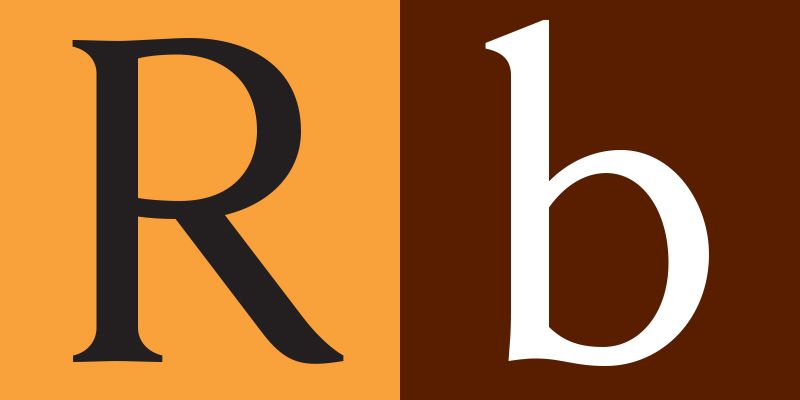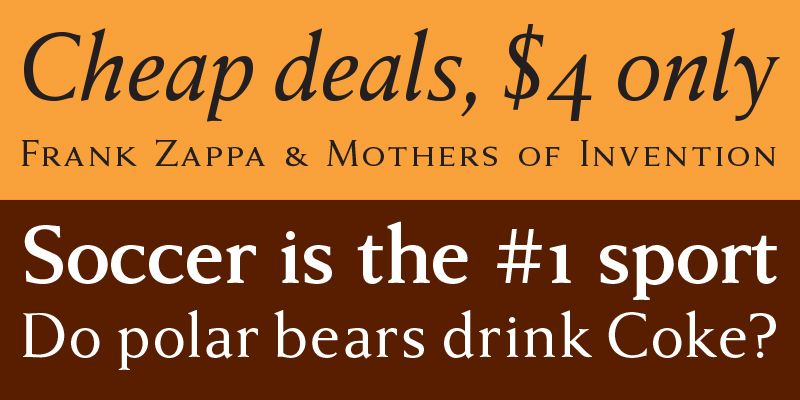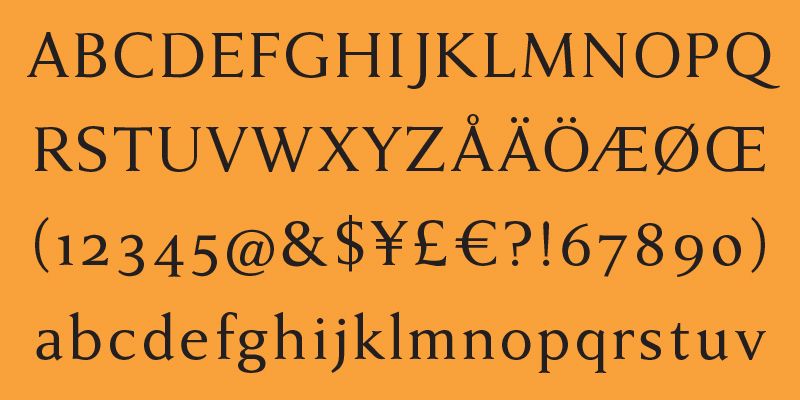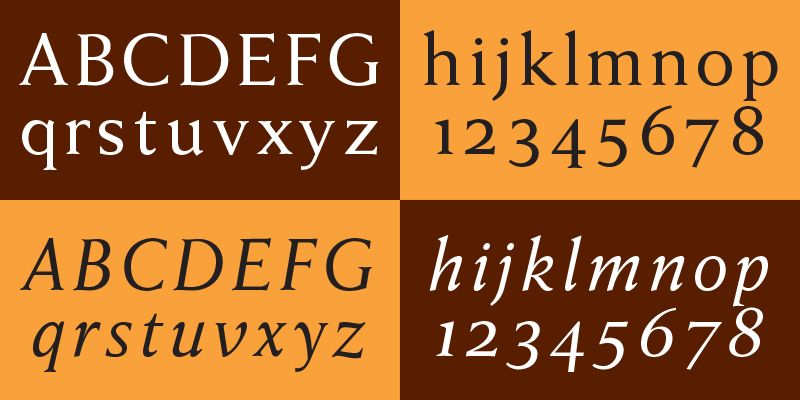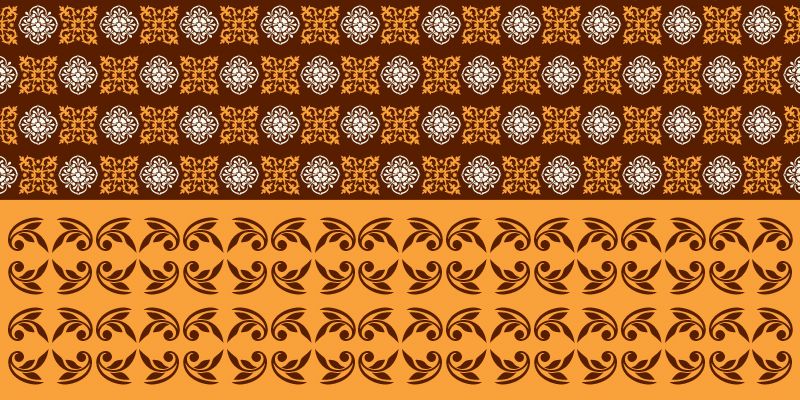
A classic text face with interesting details, giving it lots of character. Anziano does show touches of another classic typeface – Weiss (by Emil Rudolf Weiss, 1926). Extra flavour is added with symbols and ornaments.
Stefan Hattenbach is a well-known Swedish type designer with over 30 years of experience with type design, graphic design and advertising. He started out with advertising in 1980 and moved on to graphic design in 1994. He designed his first typeface in 1996 and is the founder of MAC Rhino Fonts. Stefan lives and works in Stockholm, but has also worked abroad in Budapest (1993–94) and San Francisco (2005–06). Since 2012, he works full time designing custom typefaces for domestic and international companies (by 2018 more than 50 typefaces including retail typefaces). In 2012–13, he designed the official typefaces for Sweden, together with the design agency Söderhavet. His retail typefaces have been spread around the World since the first design, New Global, was released in 1996. Stefan is totally passionate about letters (addicted collector of type specimens). He considers traveling a fundamental »hobby« and has a weak spot for Italy. 100% Romanista (AS ROMA supporter) and espresso lover.